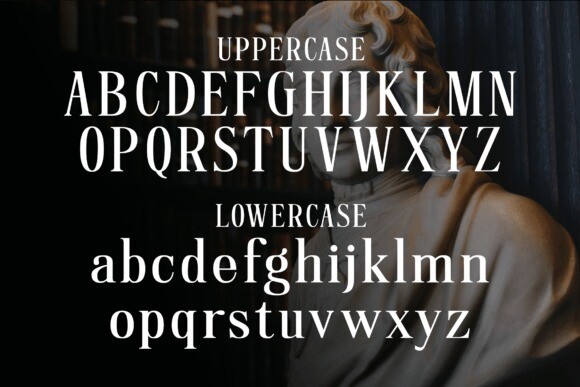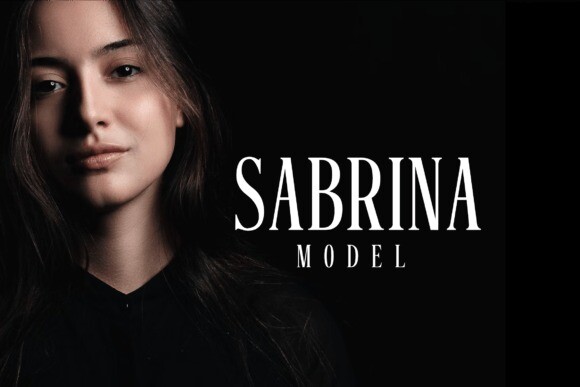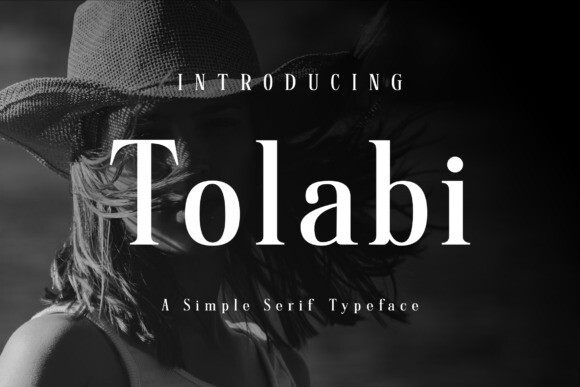
Tolabi Font
Tolabi Font a simple serif font, designed to captivate audiences across various industries. With its clean lines and vibrant energy, this font exudes sophistication while maintaining a modern simplicity. Perfectly suited for beauty brands seeking elegance, law firms projecting authority, interior designers showcasing refinement, journalists delivering clarity, and financial institutions embodying professionalism. Elevate your brand with this versatile font, where simplicity meets vitality.